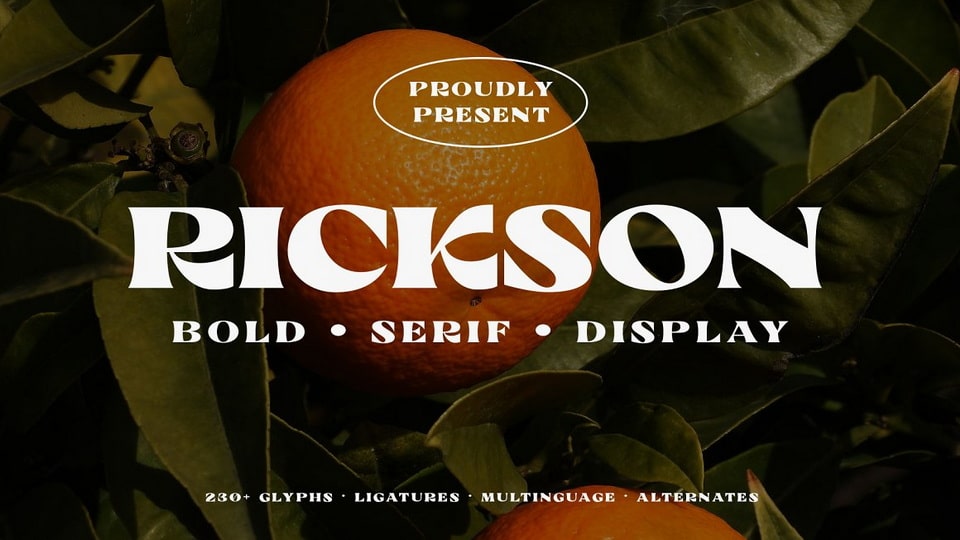
Download Rickson font, a handy bold serif typeface designed with satisfying large serif. Rickson font is inspired by the newspaper headline and classy fashion logos but can be used for many purposes.